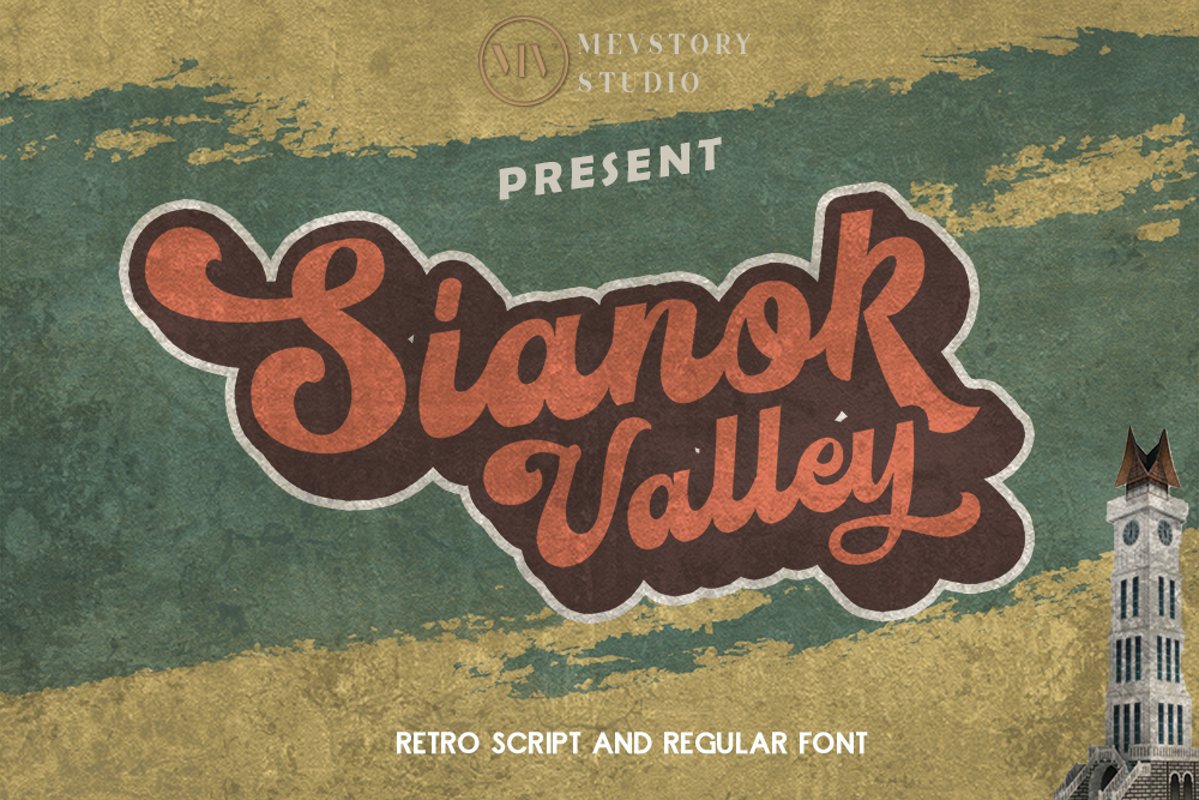
Sianok Valley |NEW UPDATE
Sianok Valley
This font is inspired by the beauty of the sianok valley in western Sumatra, the green valley in the city of Bukittinggi, West Sumatra.
This valley is part of a fault that separates the island of Sumatra into two elongated parts.
From the story above, this font was created
I'm made with personality touch every single curve. I hope this can make inspire you from your work. and a very bouncy baseline It has a perfectly paired complimentary marker font , and a super handy set of bonus Swash. Ideal for logos, handwritten quotes, product packaging, header, poster, merchandise, social media & greeting cards.